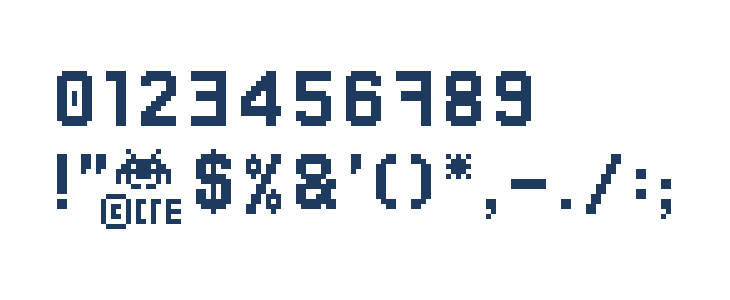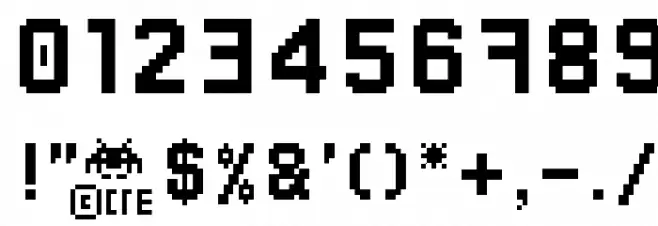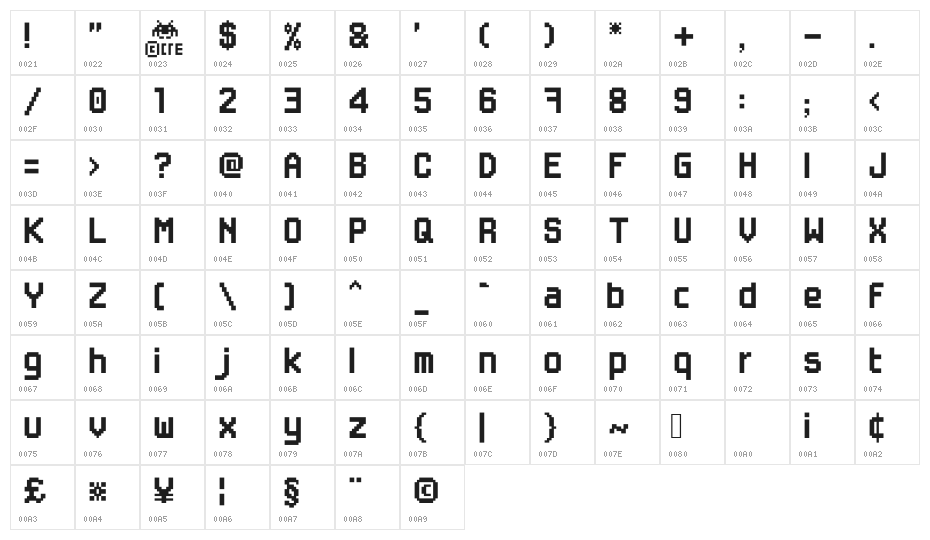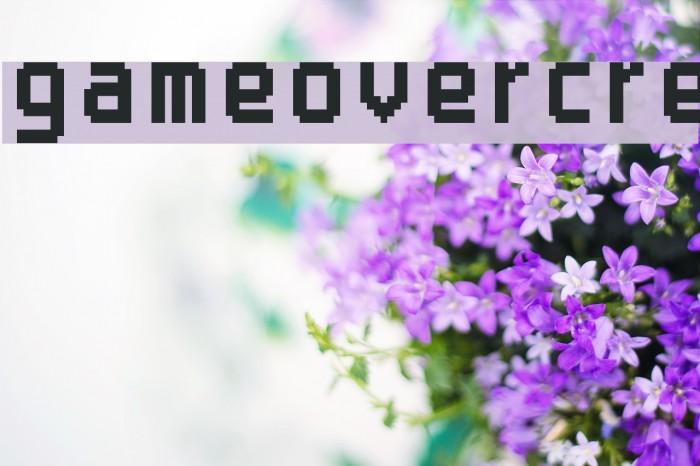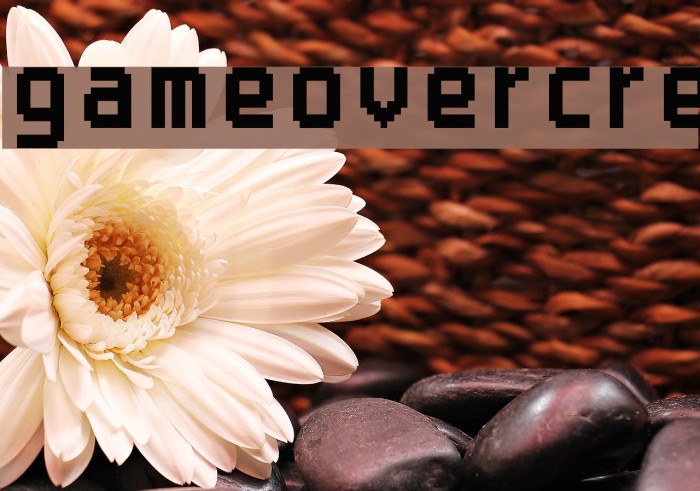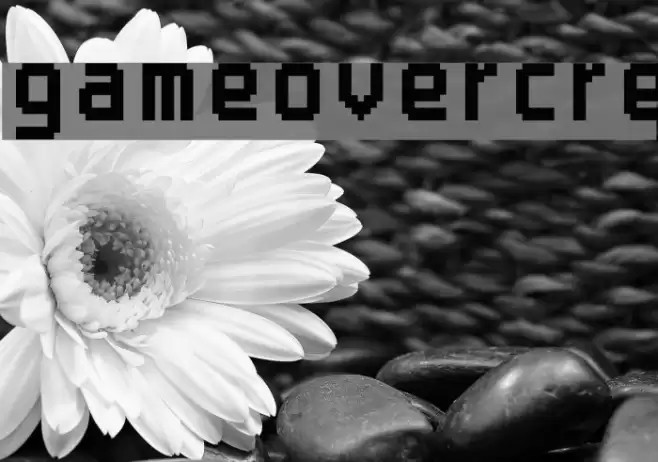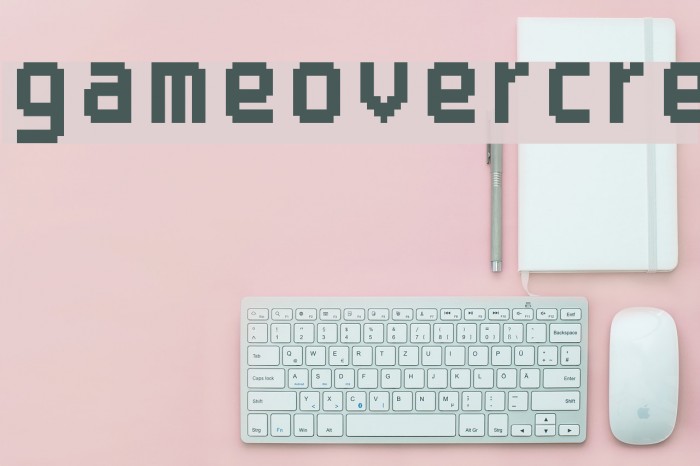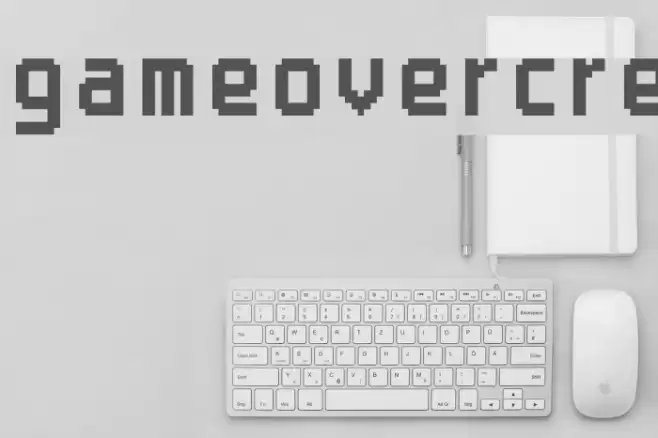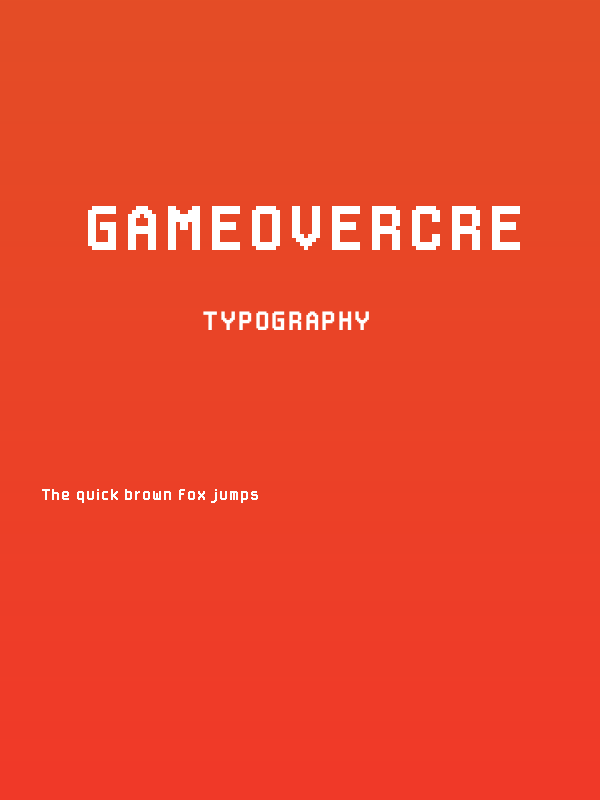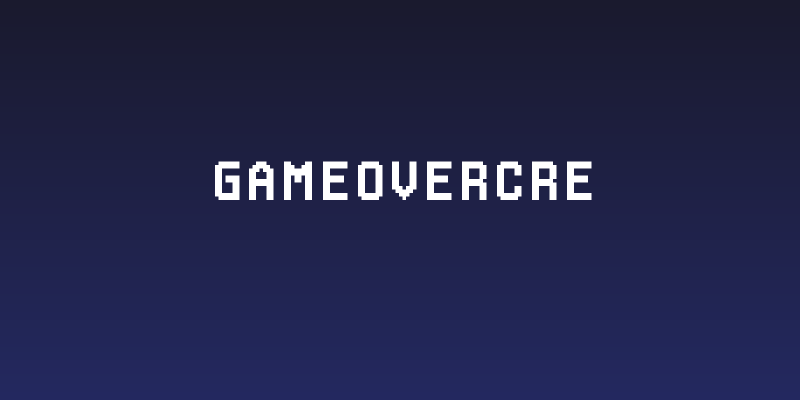
gameovercre Font
gameovercre Description
This font features a bold, pixelated design reminiscent of classic video game aesthetics. Each character is constructed with a blocky, grid-like structure, evoking a sense of nostalgia for retro gaming. The uppercase and lowercase letters maintain a consistent height, contributing to a uniform appearance. Numbers and special characters follow the same pixelated style, ensuring a cohesive look across all text elements. The font's simplicity and geometric form make it highly legible, even at smaller sizes, while its distinct style adds a playful and vintage touch to any project.
| Use Case | Headlines, Logos, Digital Art |
| Proposed Projects | Ideal for retro-themed designs, video game interfaces, digital art projects, and nostalgic branding. |